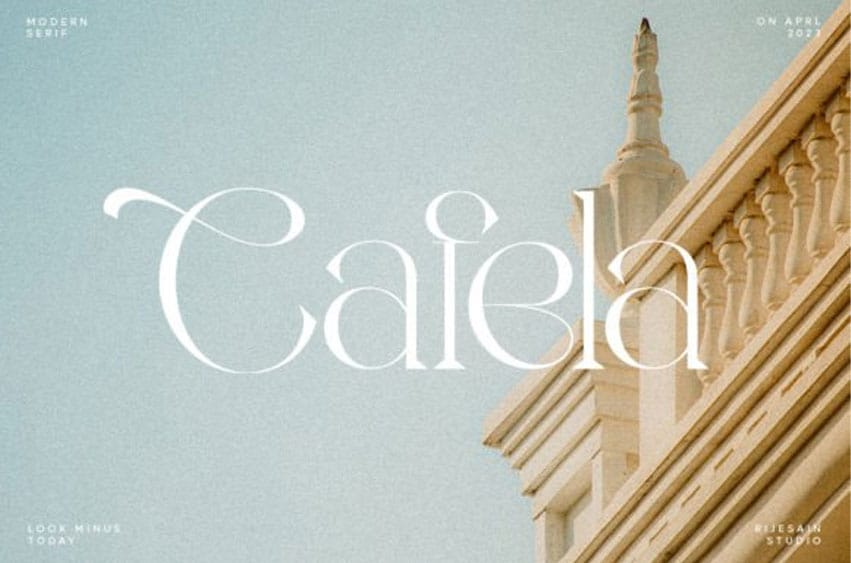
Cafela Font is an elegant and modern serif font and is the perfect choice for those seeking a refined and sophisticated typeface. With clean lines and a timeless feel, it exudes professionalism and class. Whether you’re creating print materials or digital designs, this font is sure to add a touch of luxury and refinement to your work.